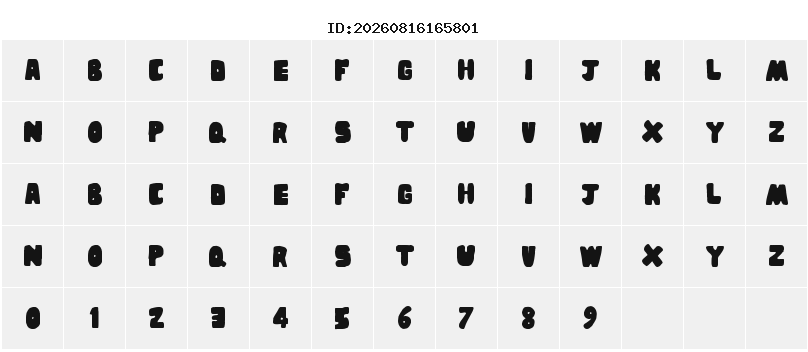
Sponge Preview
• Font Name: Sponge
• Full Font Name: Sponge
• Version: Version 1.00 August 6, 2012, initial release
About Sponge.ttf
Sponge.ttf is a modern, elegant sans-serif font designed for ultimate readability and visual harmony. Perfect for branding, headlines, web design, and print materials.